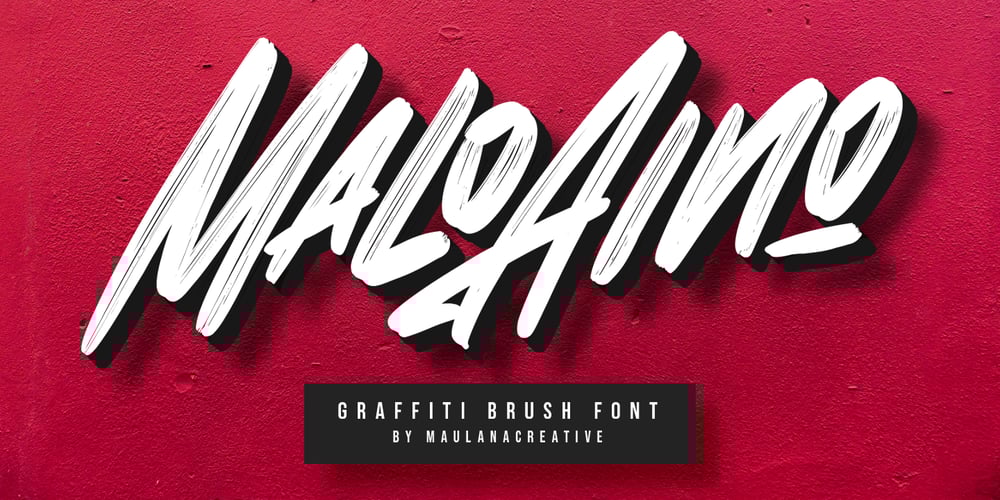
Malo Aino Font Family was designed by Gilang Maulana and published by Maulana Creative. Malo Aino contains 1 styles and family package options. Give your designs an authentic handcrafted feel. “Malo Aino Graffiti Brush Font” is perfectly suited to signature, stationery, logo, typography quotes, magazine or book cover, website header, clothing, branding, packaging design and more.